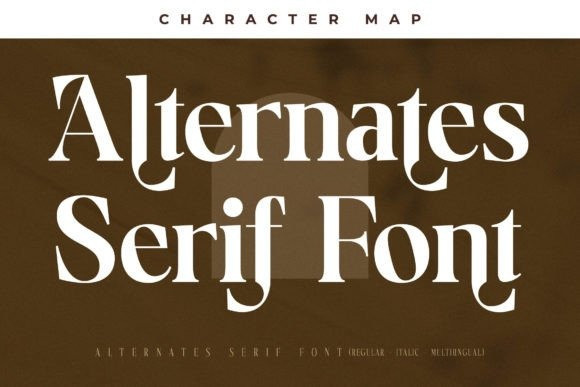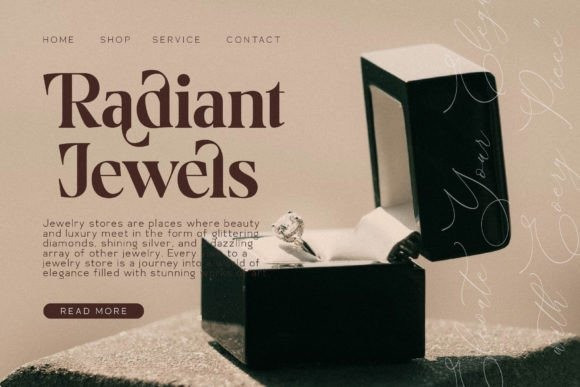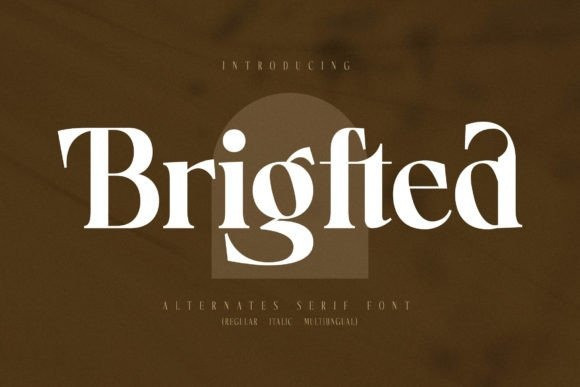
Brigfted Font
Brigfted Font is a modern and classic serif typeface that has its own unique style and modern look. This typeface is perfect for an elegant & luxurious logo, book or movie title design, fashion brand, magazine, clothes, lettering, quotes, and so much more.